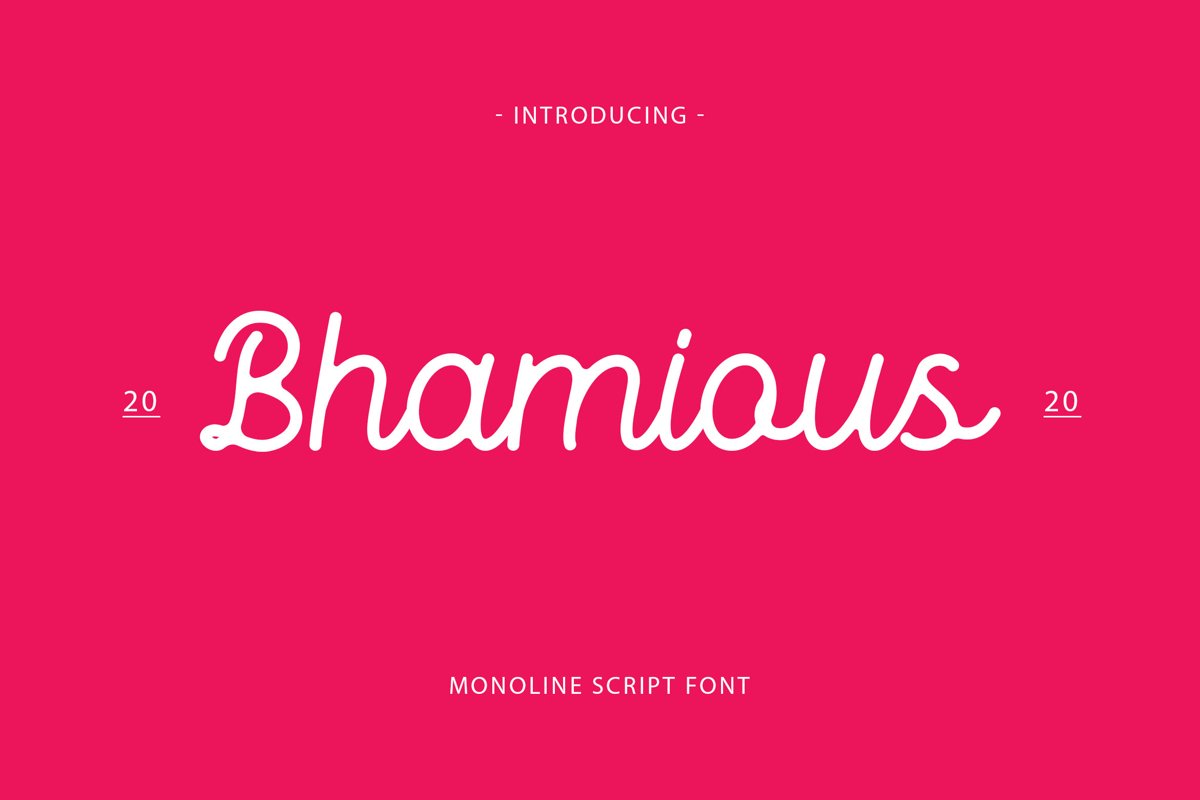
Bhamious - Monoline Script Font
Bhamious
Bhamious - Monoline font, It has a elegant, classy look and cool. It’s a great font for fashion,
apparel projects, signature, album cover, logo, branding, magazine, social media, & advertisements,
but also works great for other projects.
Highlights:
• Basic Latin A-Z and a-z
• Symbols